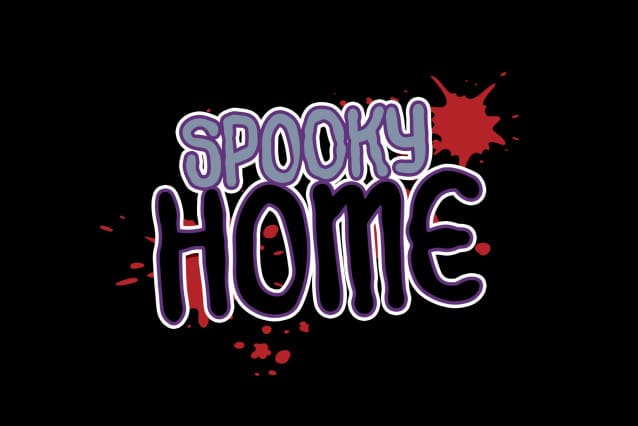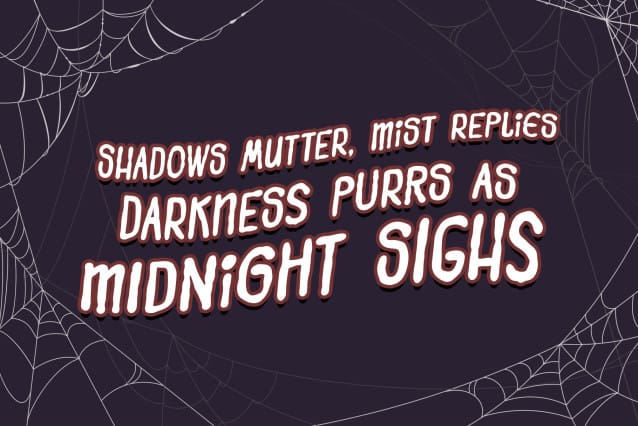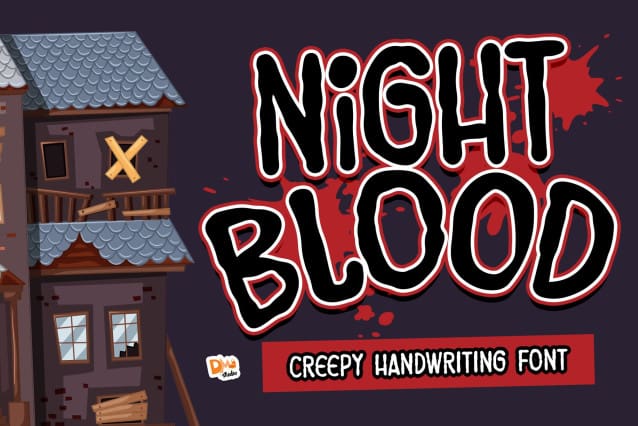
Night Blood Font
Night Blood Font is a bold and striking typeface designed to add a touch of mystery and intrigue to your designs. With its sharp letterforms and Gothic-inspired style, this font is perfect for projects that require a dark and dramatic aesthetic. Elevate your designs with the captivating and enigmatic Night Blood Font.